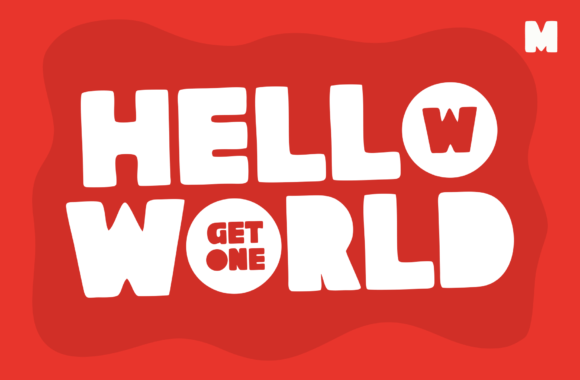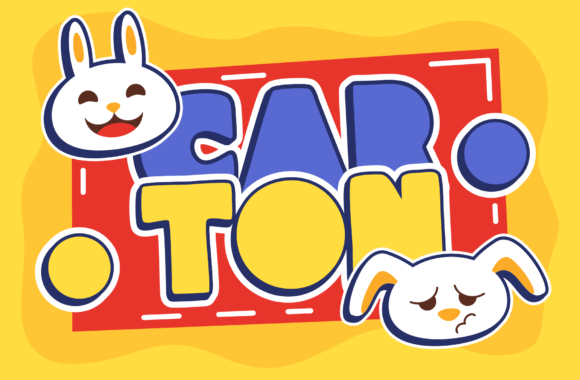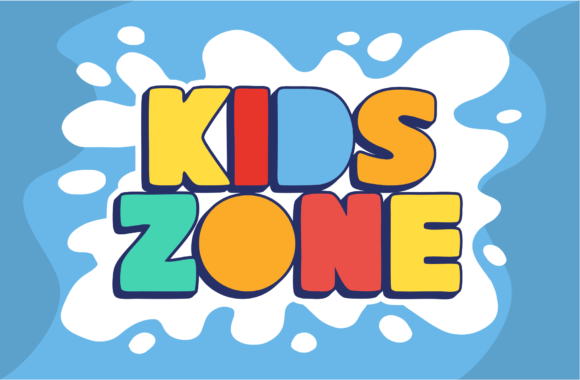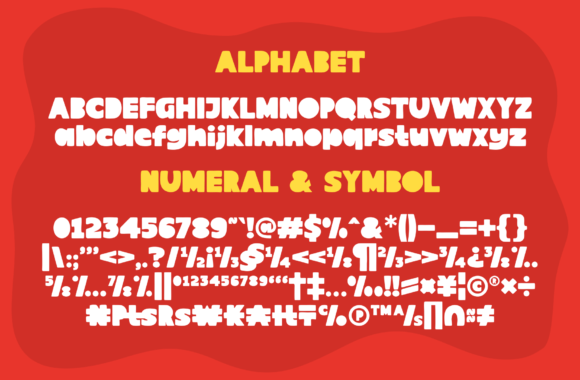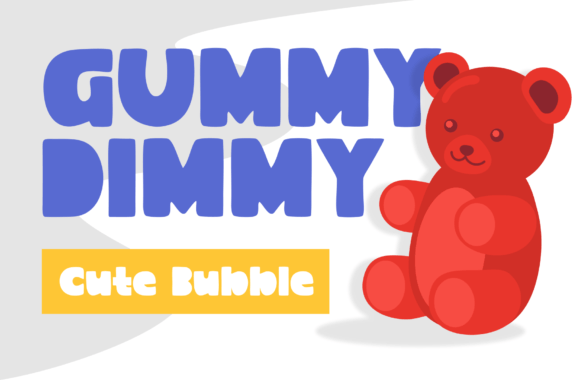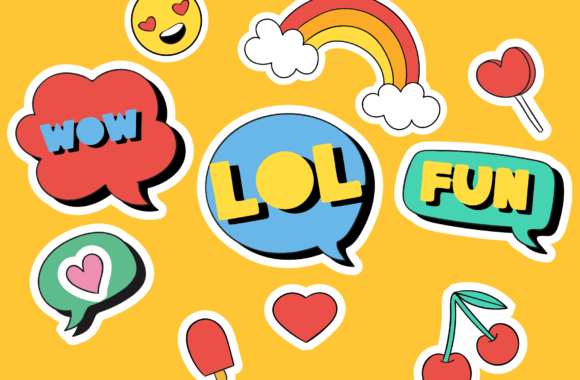
Introducing Heavin Stalyn: The Ultimate Playful Display Font
Are you tired of using the same old fonts in your designs? Look no further! We’re excited to introduce Heavin Stalyn, a brand new font that’s sure to bring a smile to your face. This playful display font is perfect for projects that require a lighthearted and cheerful touch, making it ideal for designers and crafters who want to add a fun and youthful vibe to their work.
What is Heavin Stalyn?
Heavin Stalyn is a handwritten font that reflects joy, cheerfulness, and a light atmosphere, often found in comics or cartoons. Its unique and playful style makes it perfect for a variety of design projects, from poster designs and invitation cards to comics and promotional materials aimed at a younger audience or those looking for a fun feel.
Characteristics of Heavin Stalyn
So, what sets Heavin Stalyn apart from other fonts? Here are some of its key characteristics:
- Playful and Fun: Heavin Stalyn is designed to bring a sense of playfulness and fun to your designs. Its cheerful and lighthearted style makes it perfect for projects that require a youthful and energetic vibe.
- Handwritten Style: This font features a handwritten style that’s reminiscent of comics and cartoons. Its unique and personal touch adds a human element to your designs, making them more relatable and engaging.
- Versatile: Heavin Stalyn is a versatile font that can be used for a wide range of design projects, from posters and invitations to comics and promotional materials.
Use Cases for Heavin Stalyn
So, how can you use Heavin Stalyn in your designs? Here are some use cases to get you started:
- Poster Designs: Add a playful touch to your poster designs with Heavin Stalyn. Its bold and cheerful style makes it perfect for eye-catching headlines and titles.
- Invitation Cards: Make your invitation cards stand out with Heavin Stalyn. Its handwritten style adds a personal touch, making your invitations more special and unique.
- Comics and Cartoons: Heavin Stalyn is perfect for comics and cartoons that require a playful and fun font. Its style is reminiscent of classic comics and cartoons, making it a great choice for designers who want to create a nostalgic feel.
- Promotional Materials: Add a youthful and energetic vibe to your promotional materials with Heavin Stalyn. Its playful style makes it perfect for marketing campaigns aimed at a younger audience.
Why Choose Heavin Stalyn?
So, why should you choose Heavin Stalyn for your design projects? Here are some reasons to consider:
- Unique Style: Heavin Stalyn has a unique and playful style that’s sure to set your designs apart from the rest.
- Easy to Read: Despite its playful style, Heavin Stalyn is easy to read, making it perfect for body text and headlines.
- Versatile: Heavin Stalyn is a versatile font that can be used for a wide range of design projects, making it a great addition to your font library.
In conclusion, Heavin Stalyn is a playful display font that’s perfect for designers and crafters who want to add a fun and youthful vibe to their work. Its unique and handwritten style makes it perfect for a variety of design projects, from poster designs and invitation cards to comics and promotional materials. With its versatility, ease of use, and unique style, Heavin Stalyn is a great addition to any font library.